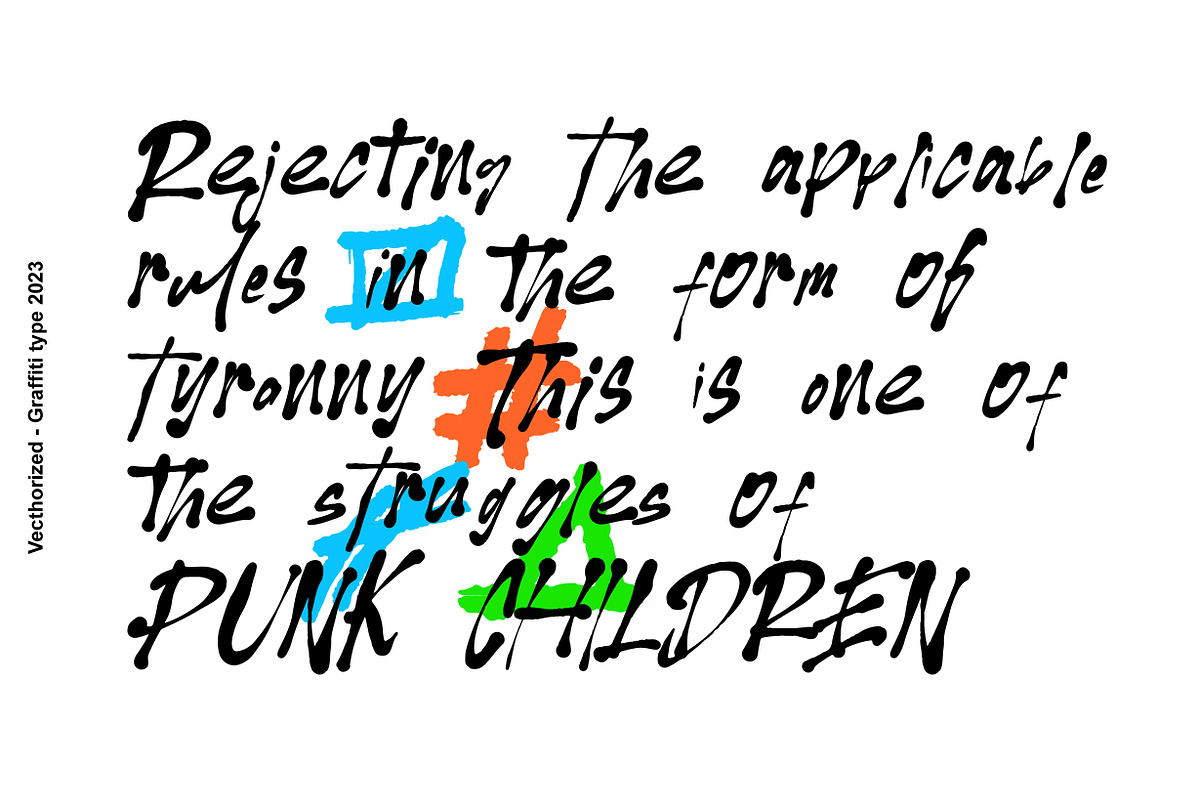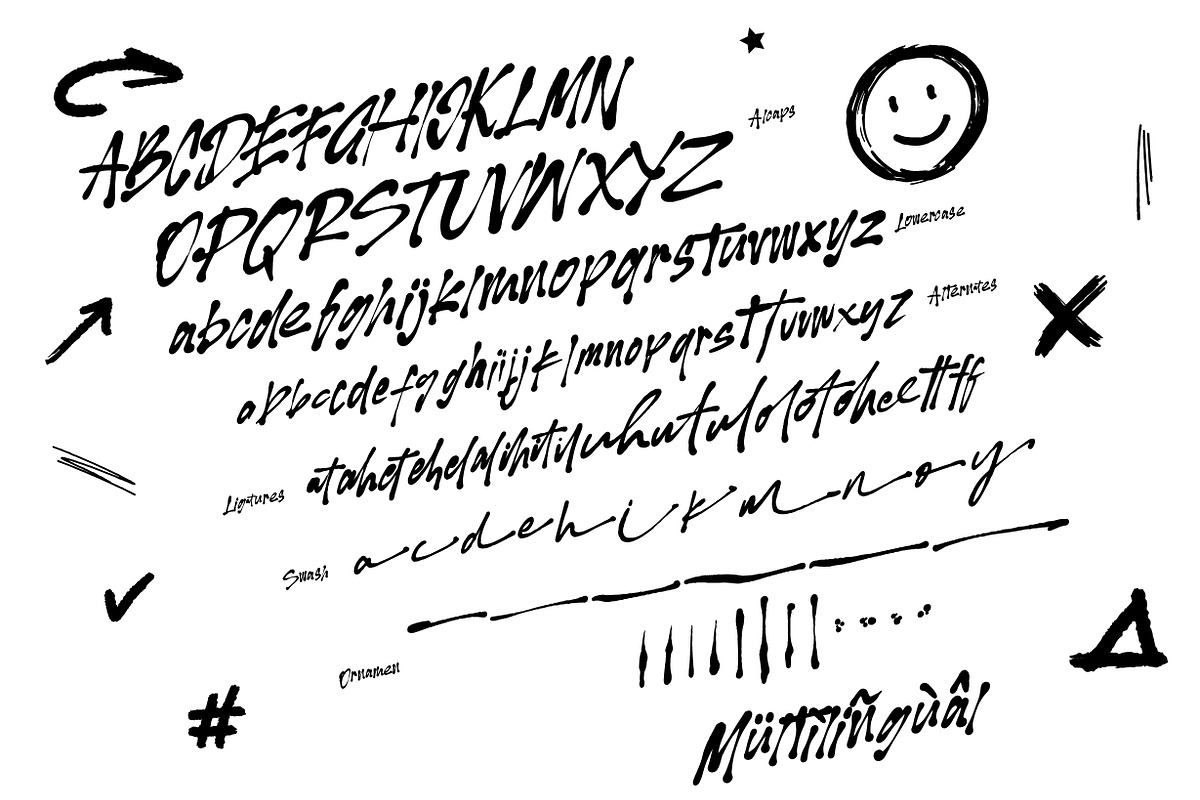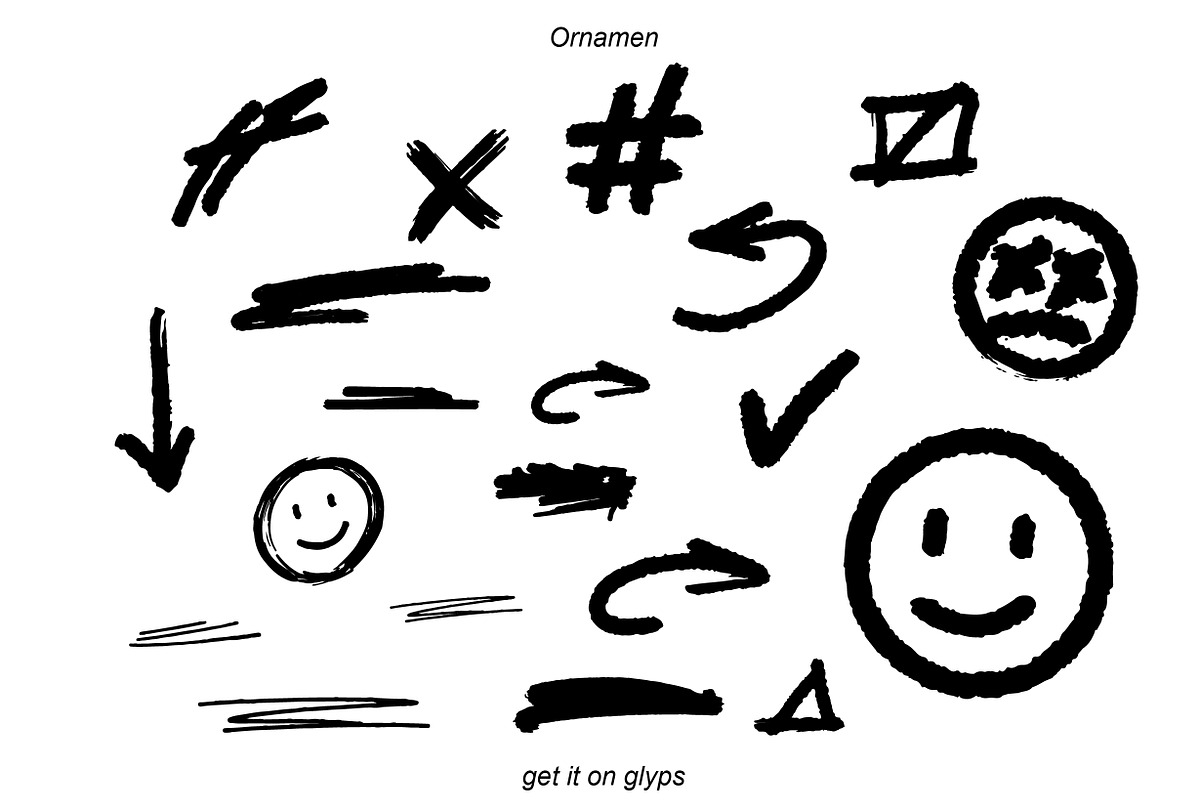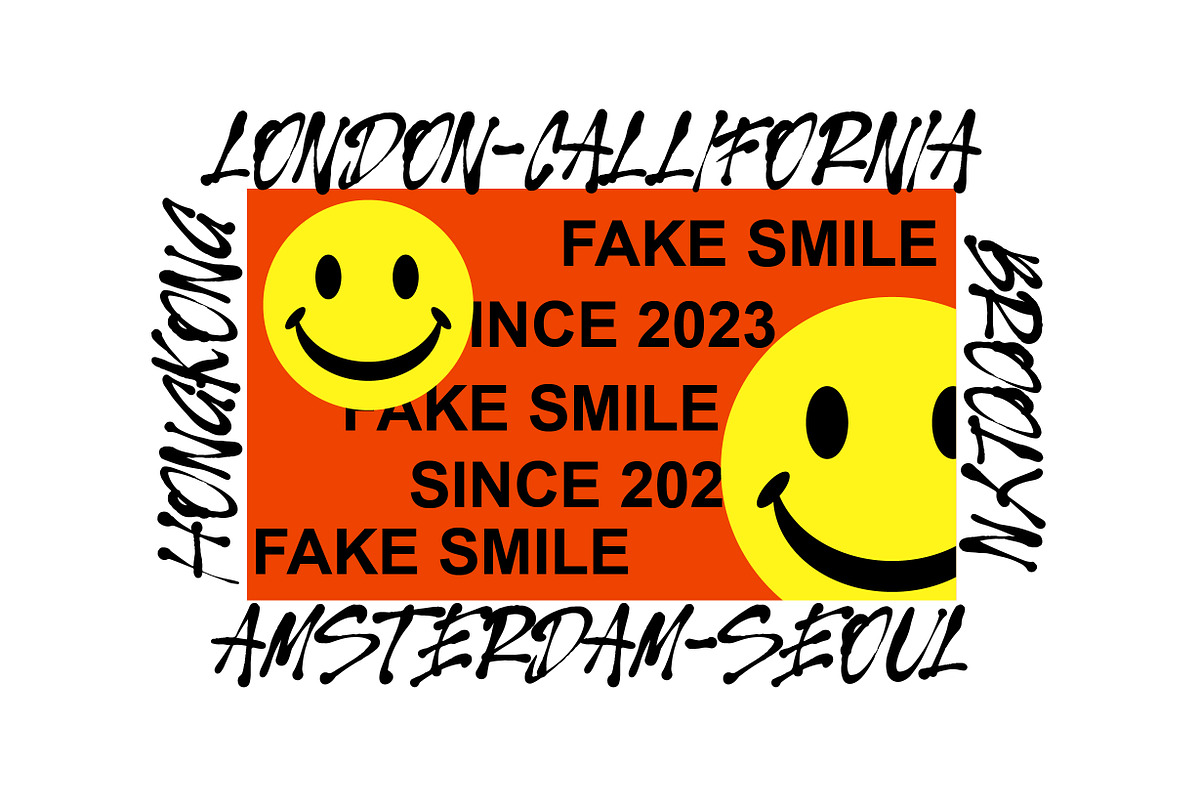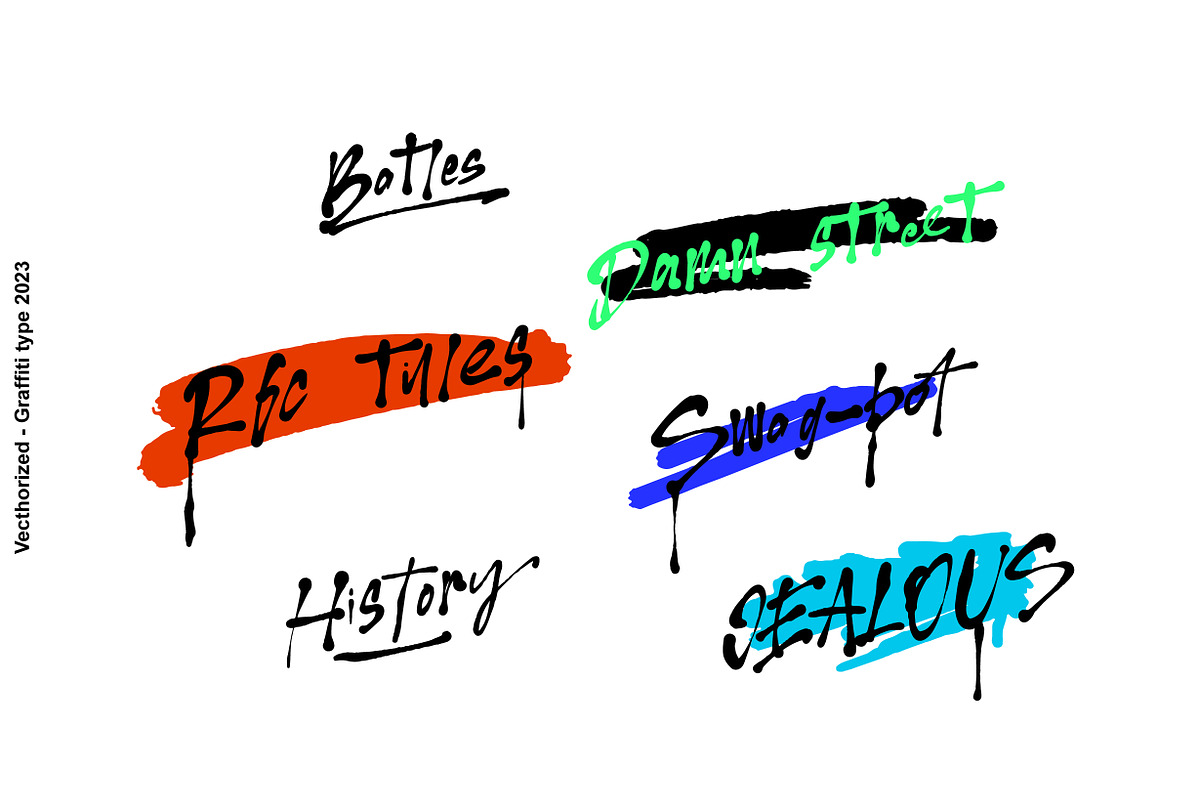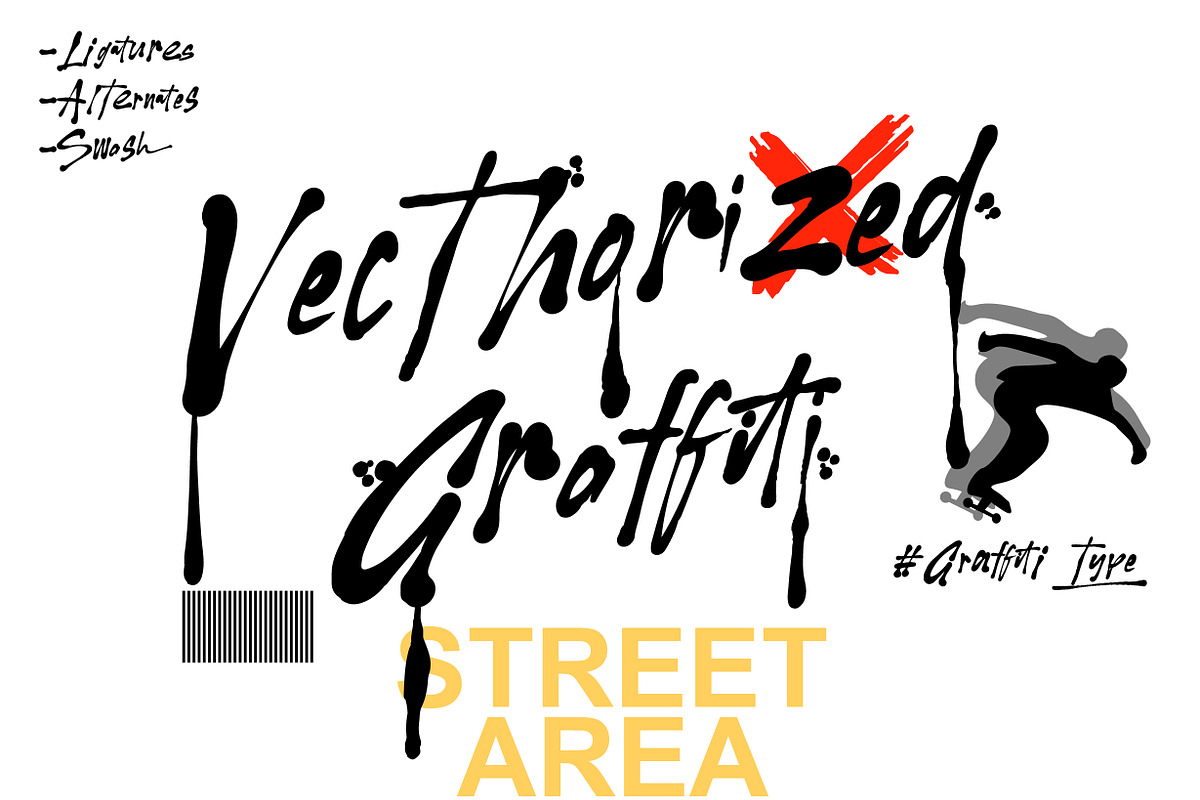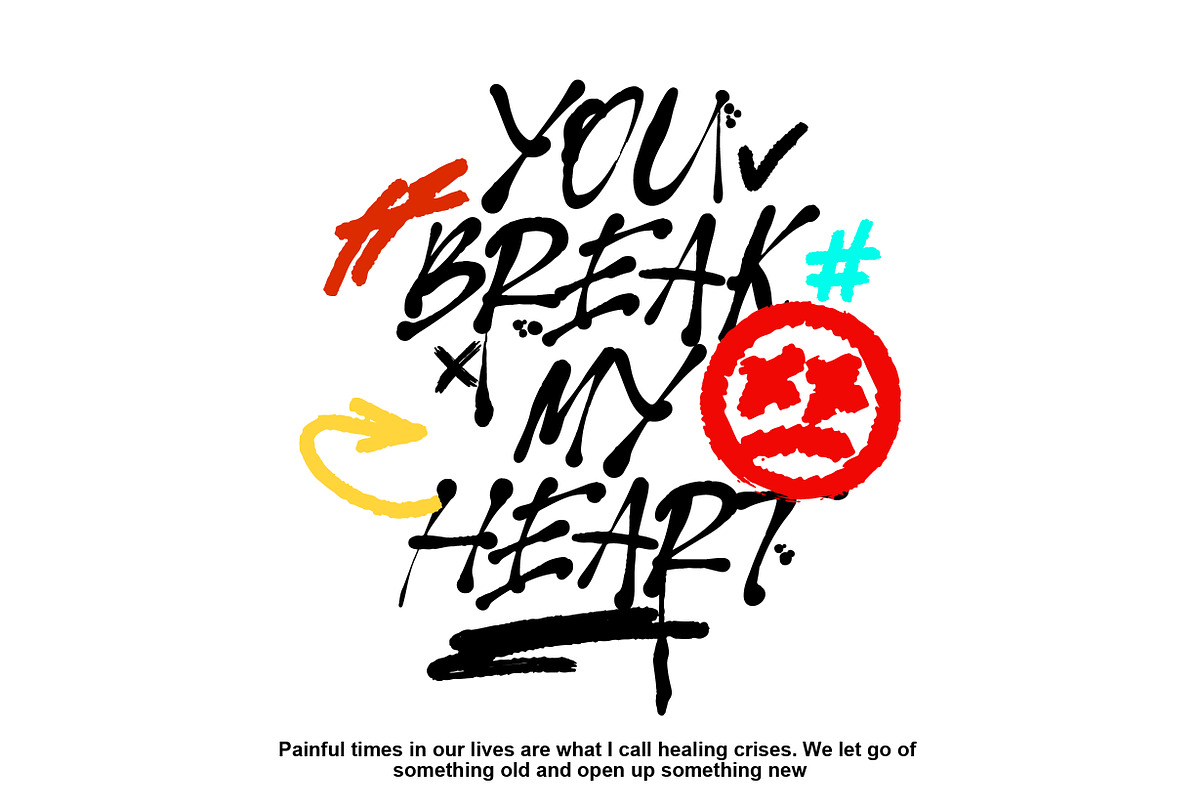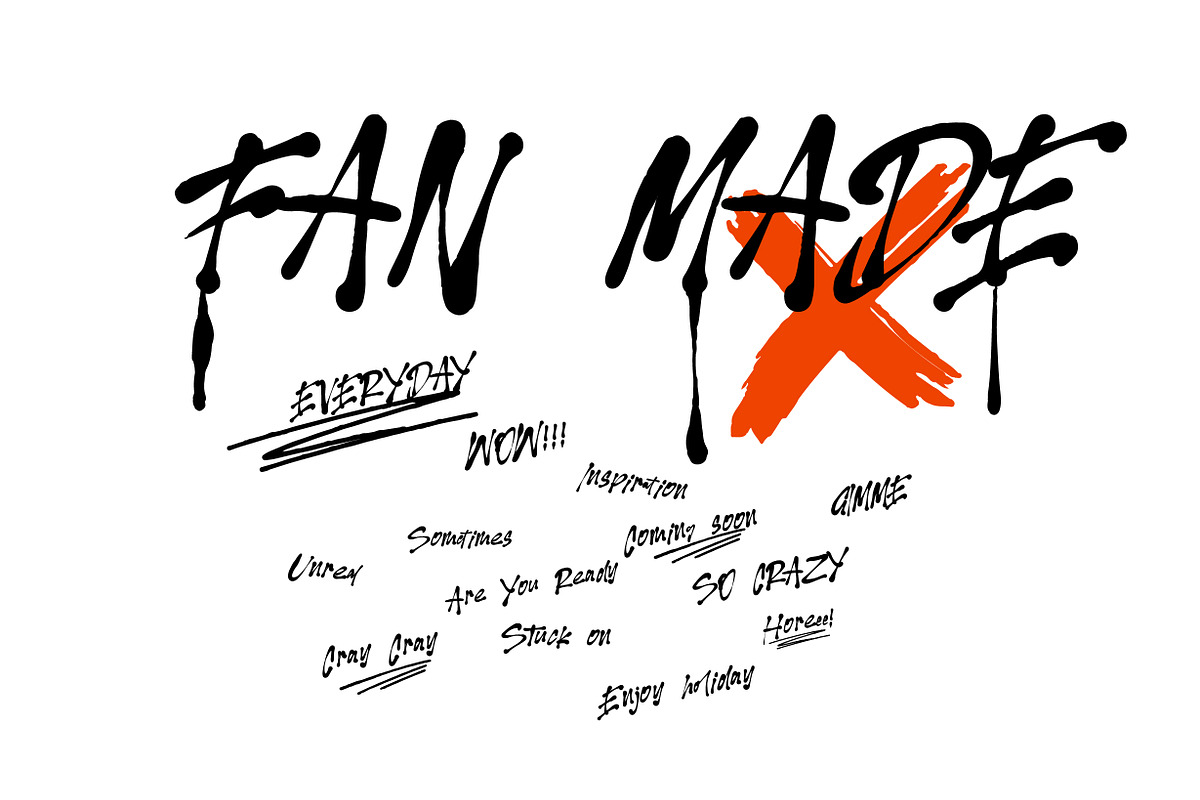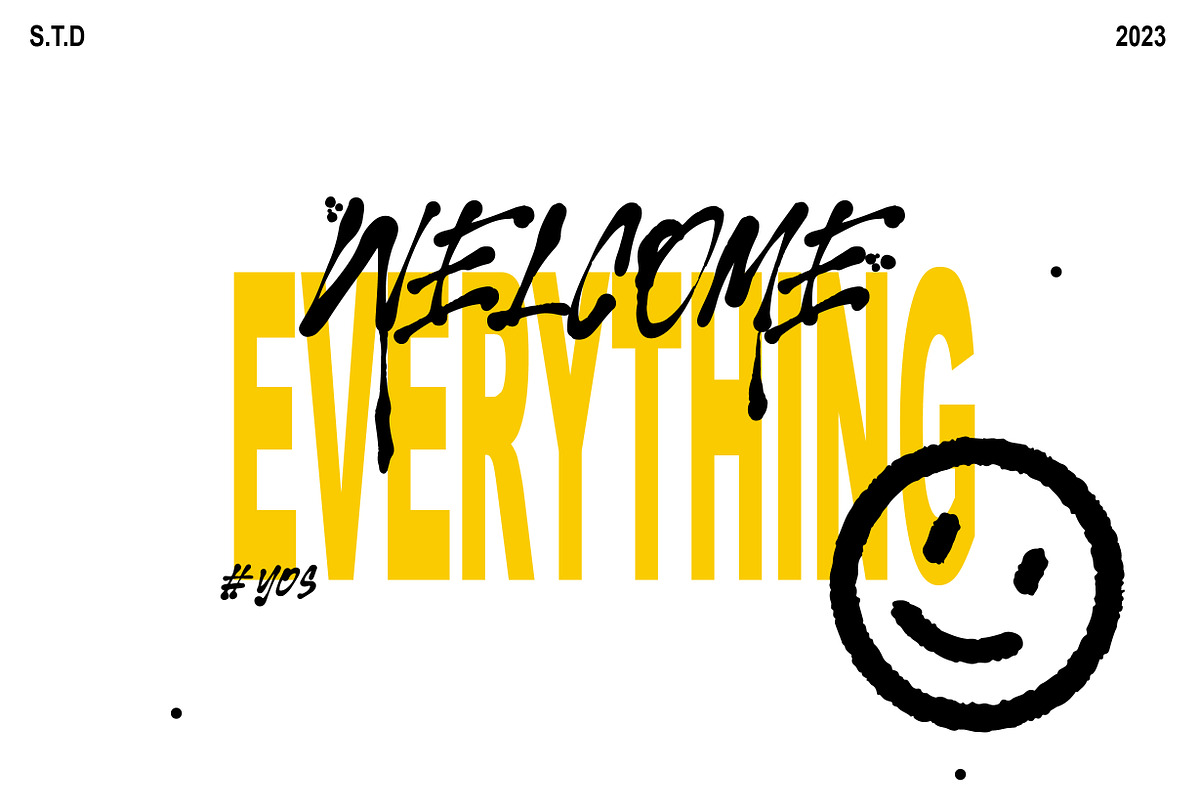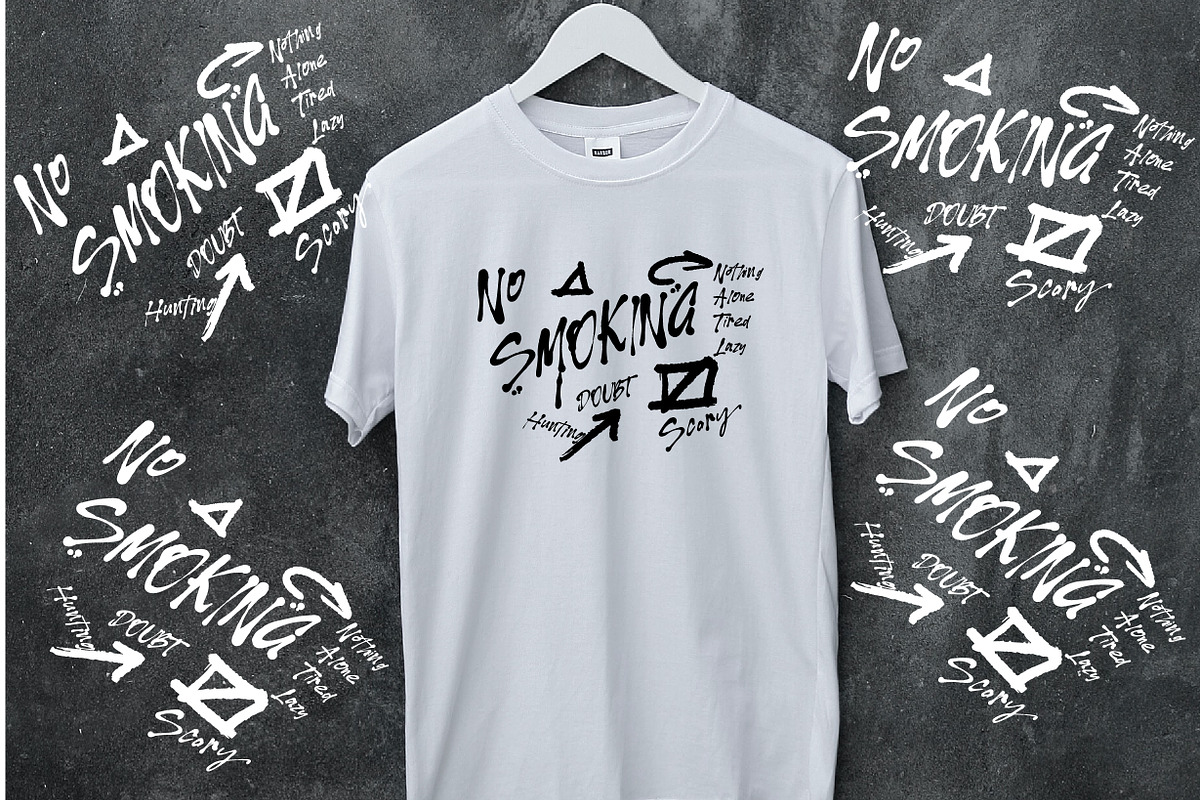
Vecthorized - Graffiti Type
hello creatives Introducing Vecthorized Graffiti which is inspired by street shooting writing which has a unique appearance with the addition of Alternate, Ligature, Swash and is accompanied by additional ornaments that you can adjust to your own style. Can be applied such as t-shirt designs, stickers, image styles, etc.
Upper and lower case letters.
Support Foreign, Numbers and Punctuation.
Alternates, Ligatures, Swashes and Ornaments